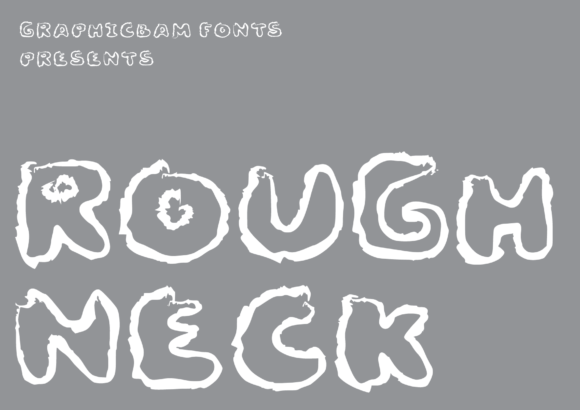
Rough Neck: A Bold Choice for Brand Identity and Design Impact
When I was redesigning the packaging for my small skincare line, I knew I needed a font that would stand out but still feel approachable. That’s when I discovered Rough Neck, a display font with a unique personality that immediately caught my eye. With its uneven brushed strokes and playful yet rugged look, Rough Neck felt like the perfect match for a brand that wanted to be both memorable and authentic.
Rough Neck for Product Labels and Packaging Design
One of the first places I used Rough Neck was on product labels. The font’s textured appearance added a tactile quality that made the labels feel more engaging. Whether it was a serum bottle or a jar of body butter, Rough Neck helped create a visual identity that felt handcrafted and personal. It wasn’t too bold or too soft—just right for a brand that wants to connect with customers on a human level.
I also tested Rough Neck on printed packaging, and it performed exceptionally well. The uneven strokes gave each label a sense of character without overwhelming the design. Since Rough Neck is a display font, it works best as a headline or title rather than body text, which made it ideal for product names and key phrases. For smaller labels, I paired it with a clean sans serif font to ensure readability while maintaining visual interest.
Rough Neck for Social Media Graphics and Online Shop Visuals
In today’s digital-first world, how your brand looks online matters just as much as how it looks in print. I used Rough Neck to create Instagram promotions and shop banners, and it made a strong impression. The font’s cool, edgy vibe fit perfectly with the aesthetic of my brand, which focuses on natural ingredients and minimalist design.
What I love about Rough Neck is that it’s versatile enough to work across different platforms. On social media, it adds a touch of playfulness that feels modern and relatable. For online shop visuals, it helps draw attention to product titles and key selling points. I even used it in mockups to showcase products, and it worked well against both light and dark backgrounds.
It’s important to note that while Rough Neck is a display font, it doesn’t have to be the only font you use. Pairing it with a clean, modern sans serif font can help balance its boldness and make your designs more readable. This kind of font pairing is especially useful for web design and social media graphics where clarity is key.
Rough Neck for Menus and Café Branding
When I collaborated with a local café to refresh their menu, Rough Neck became an unexpected hit. The café wanted something that felt fun and approachable but still professional. Rough Neck delivered exactly that. Its rough-looking texture added a sense of authenticity that resonated with the café’s laid-back vibe.
Using Rough Neck for headlines and section titles helped break up the text and guide the reader’s eye through the menu. I also used it for special offers and promotions, which stood out visually and made the information easier to digest. The font’s playful nature made the menu feel more inviting, encouraging customers to engage with the content rather than just skim through it.
For printed menus, I made sure to use larger sizes to maintain readability. While Rough Neck is a display font, it’s important to consider its legibility at smaller sizes. If you’re using it on labels or tags, test it on actual materials to ensure it looks good in print and still conveys your brand message clearly.
Rough Neck for Brand Consistency and Customer Engagement
Consistency is key in branding, and Rough Neck has helped me achieve that in several ways. By using the same font across all customer-facing materials—from business cards to website banners—it creates a cohesive brand identity that customers can recognize instantly.
Typography plays a big role in how customers perceive your brand. Rough Neck adds a layer of personality that makes your brand feel more human and trustworthy. It’s not just about looking good—it’s about making a connection. When customers see a font that feels authentic and well-designed, they’re more likely to trust your brand and return for more.
As a small business owner, I’ve found that Rough Neck helps elevate the overall design quality of my materials without requiring advanced design skills. It’s a premium font that feels accessible, and that’s a huge plus. Plus, the included styles and file formats make it easy to use across different platforms and projects.
If you’re looking for a display font that can help your brand stand out in a crowded market, Rough Neck is worth considering. It’s a great choice for logos, headings, packaging titles, and any design that needs to make an impact. Just remember to pair it wisely and test it in real-world scenarios to ensure it works for your specific needs.